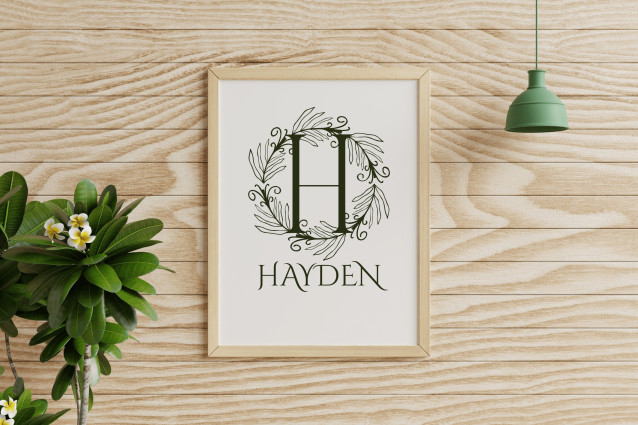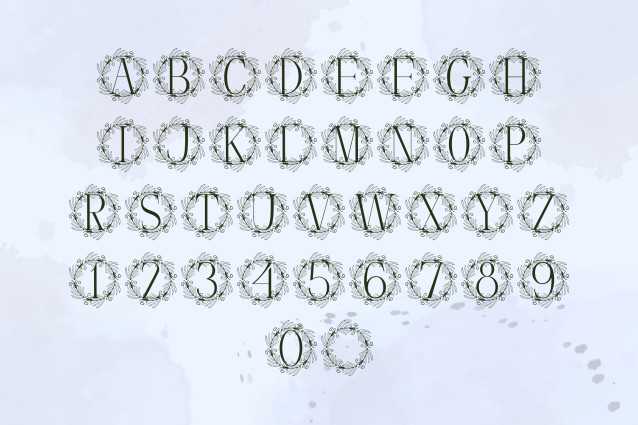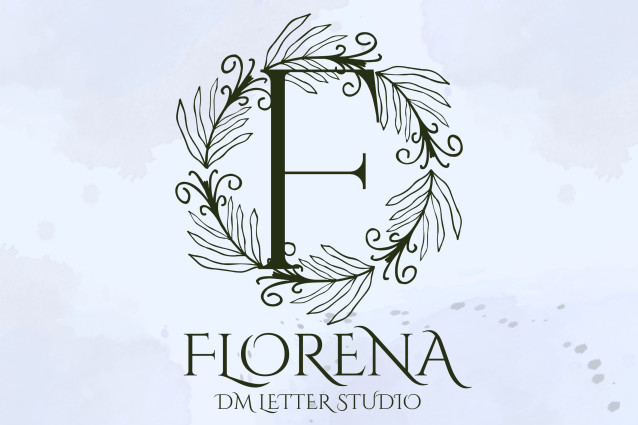
Florena Font
Florena Font is a refined serif monogram font featuring graceful uppercase letters paired with soft floral illustrations. Inspired by classic botanical beauty, this font brings timeless charm and feminine elegance to any design—perfect for weddings, Cricut projects, personalized branding, and seasonal stationery.